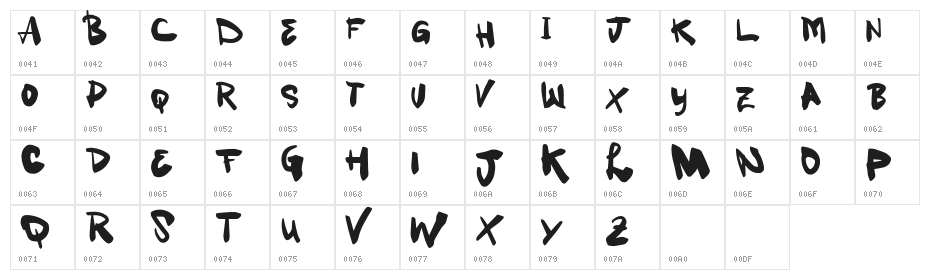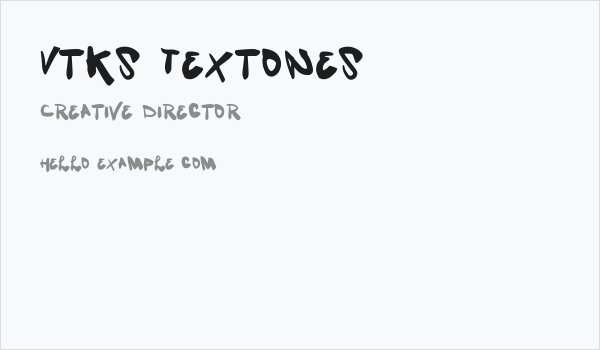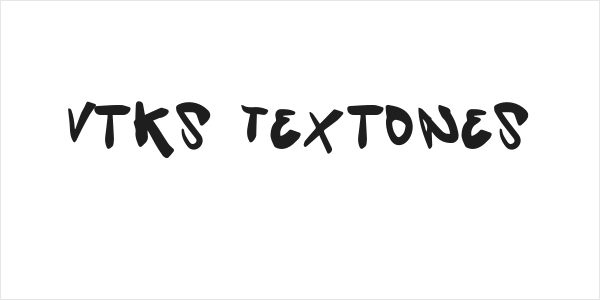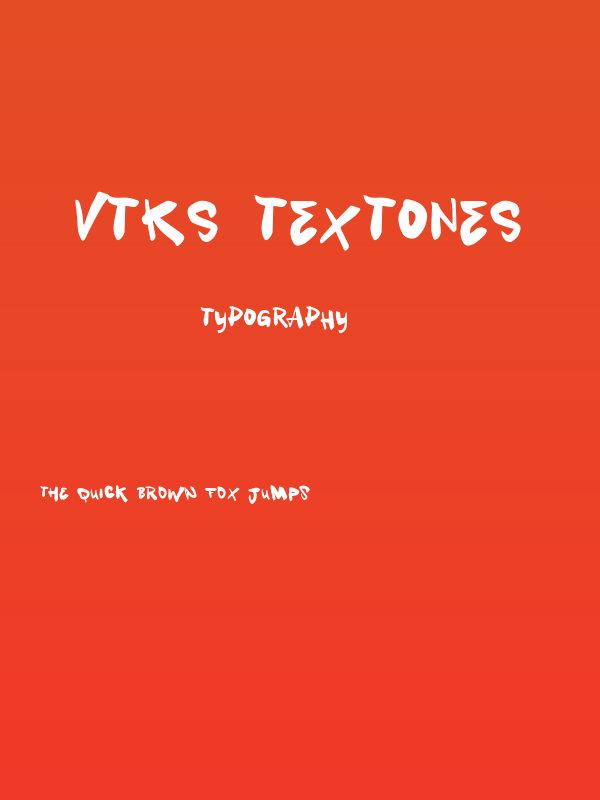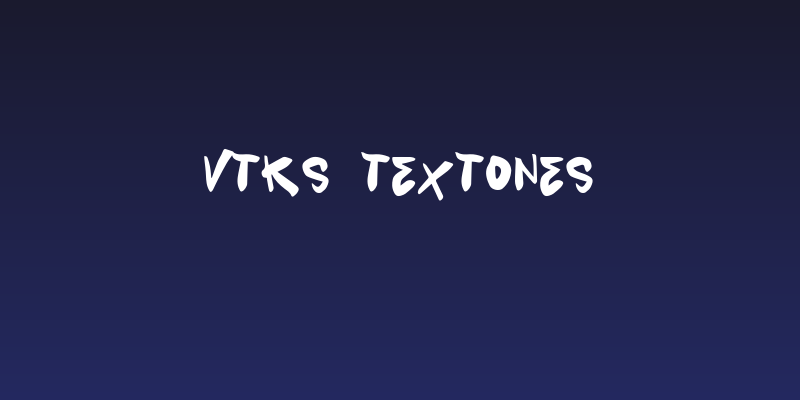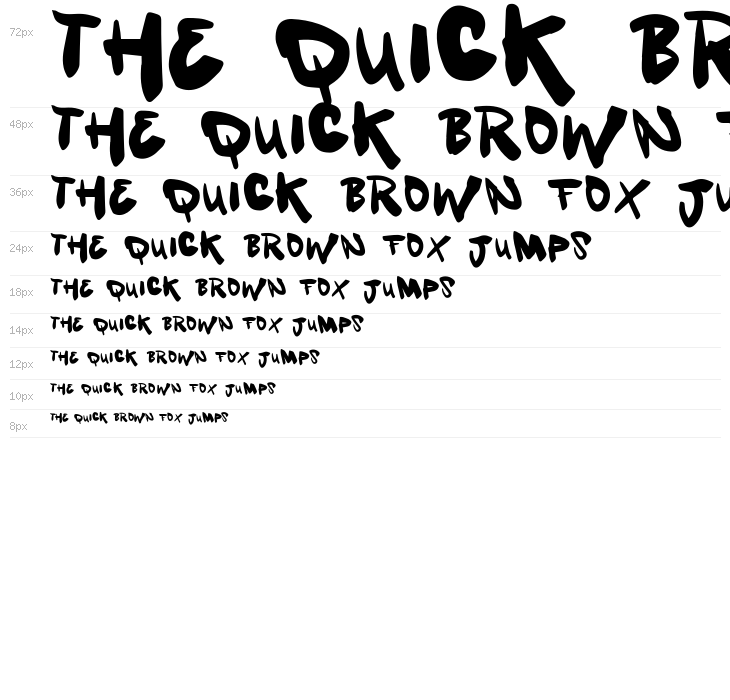
Vtks Textones Font
Vtks Textones Description
This font features a bold, expressive style with a handwritten appearance. The characters are irregular and dynamic, giving a sense of movement and energy. The strokes are thick and vary in width, adding to the font's playful and informal nature. The uppercase and lowercase letters maintain a consistent style, with unique flourishes and curves that enhance their individuality. The numbers and special characters are equally bold and distinctive, fitting seamlessly with the overall design. This font is ideal for projects that require a personal touch or a creative flair.
| Use Case | Logos, Posters, Invitations |
| Proposed Projects | Ideal for creative projects such as posters, invitations, and branding materials that require a personal and artistic touch. |